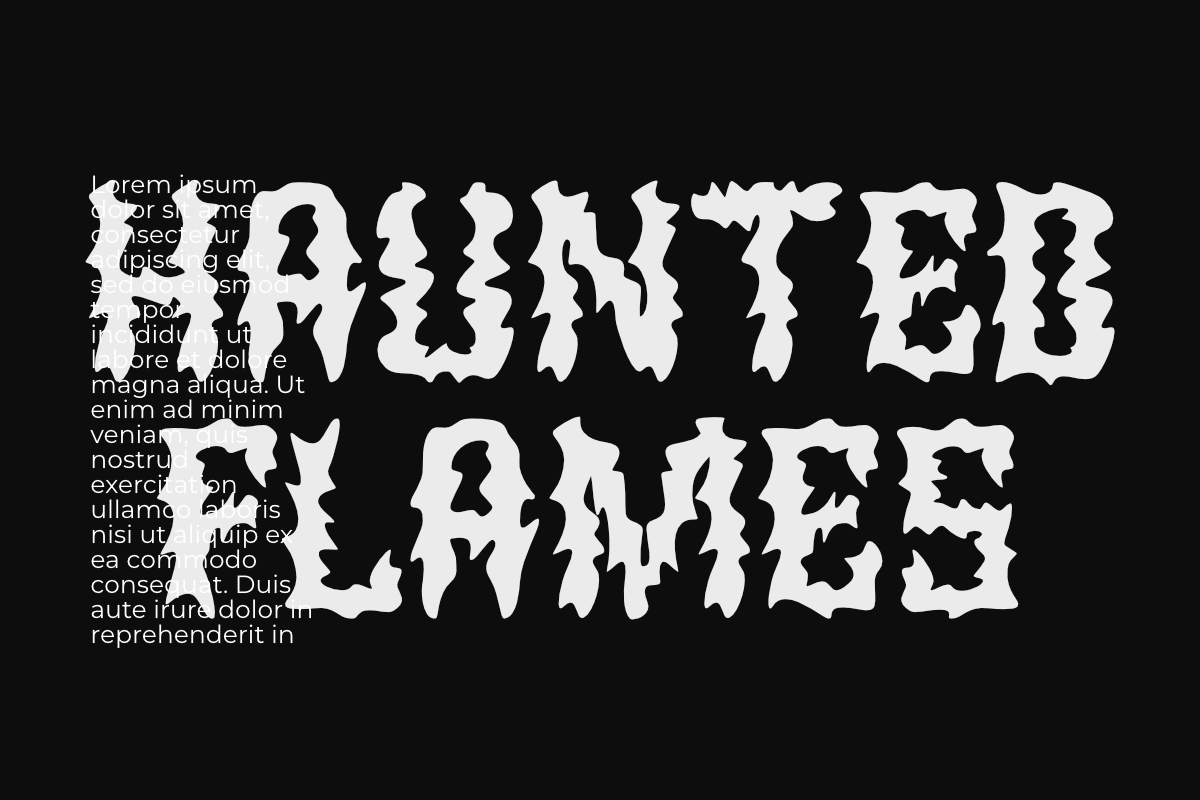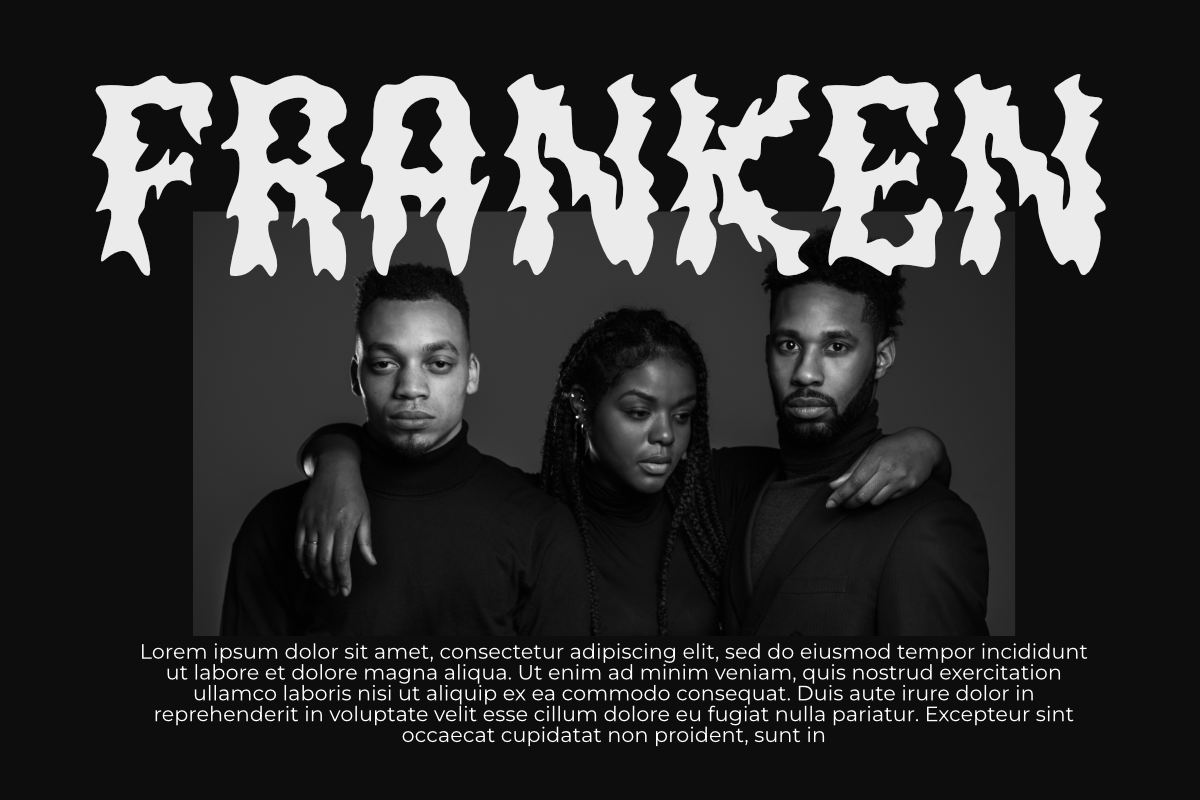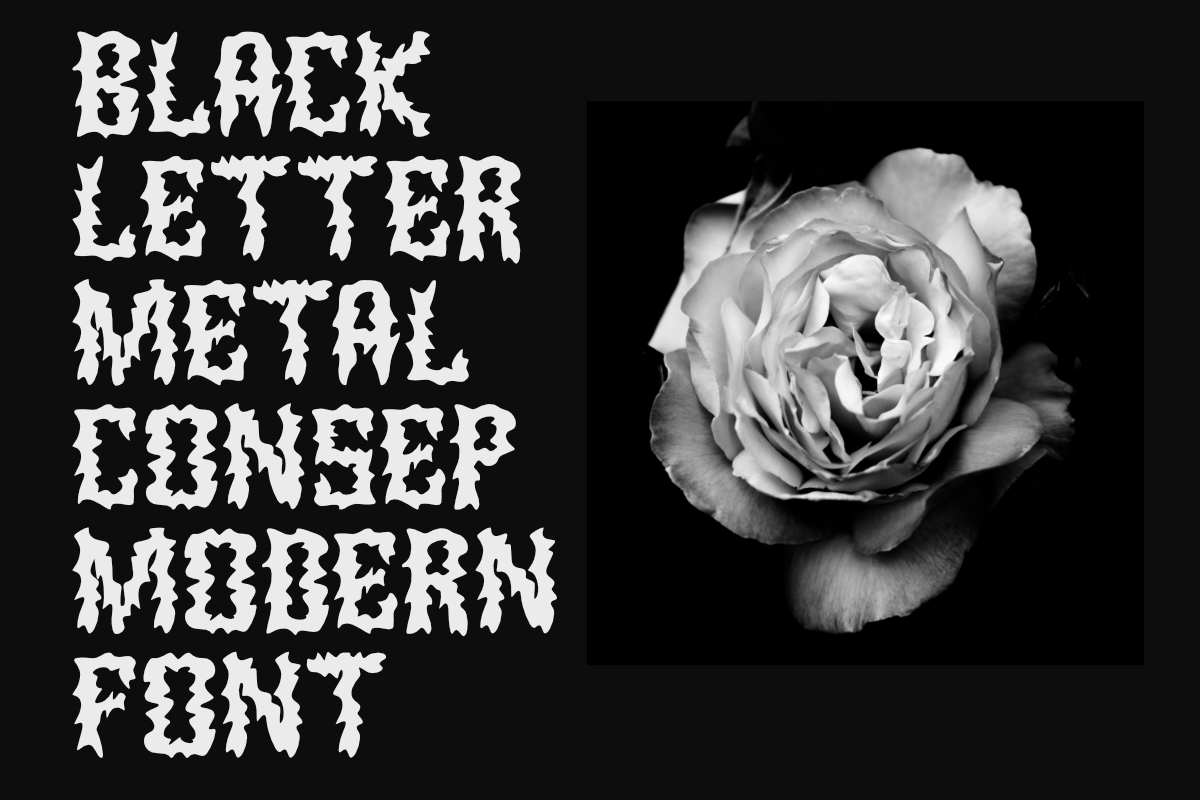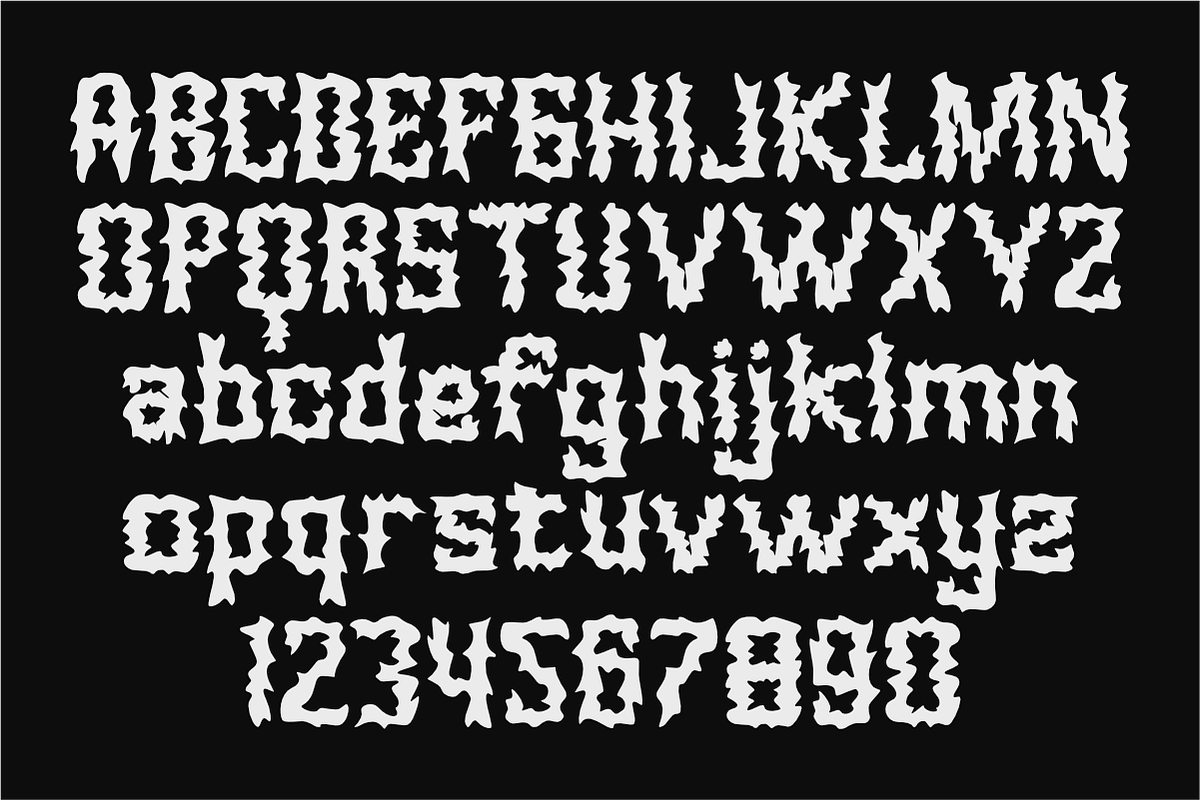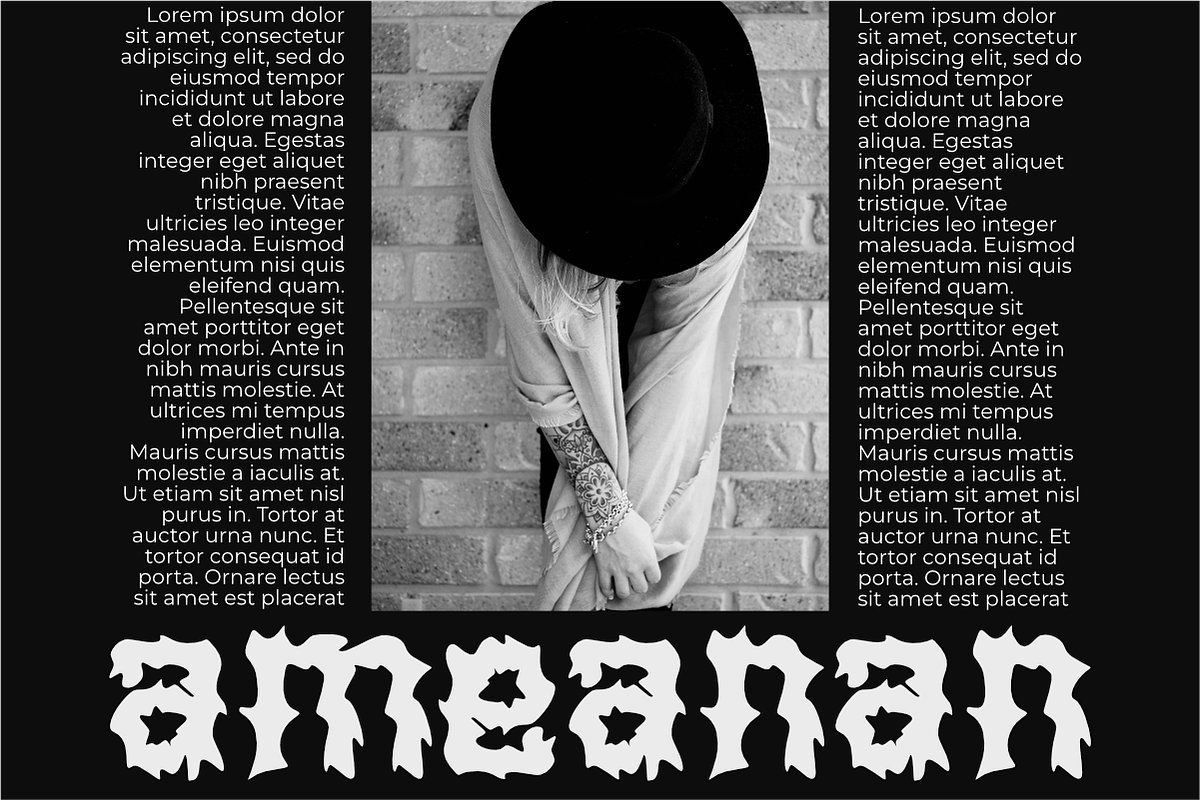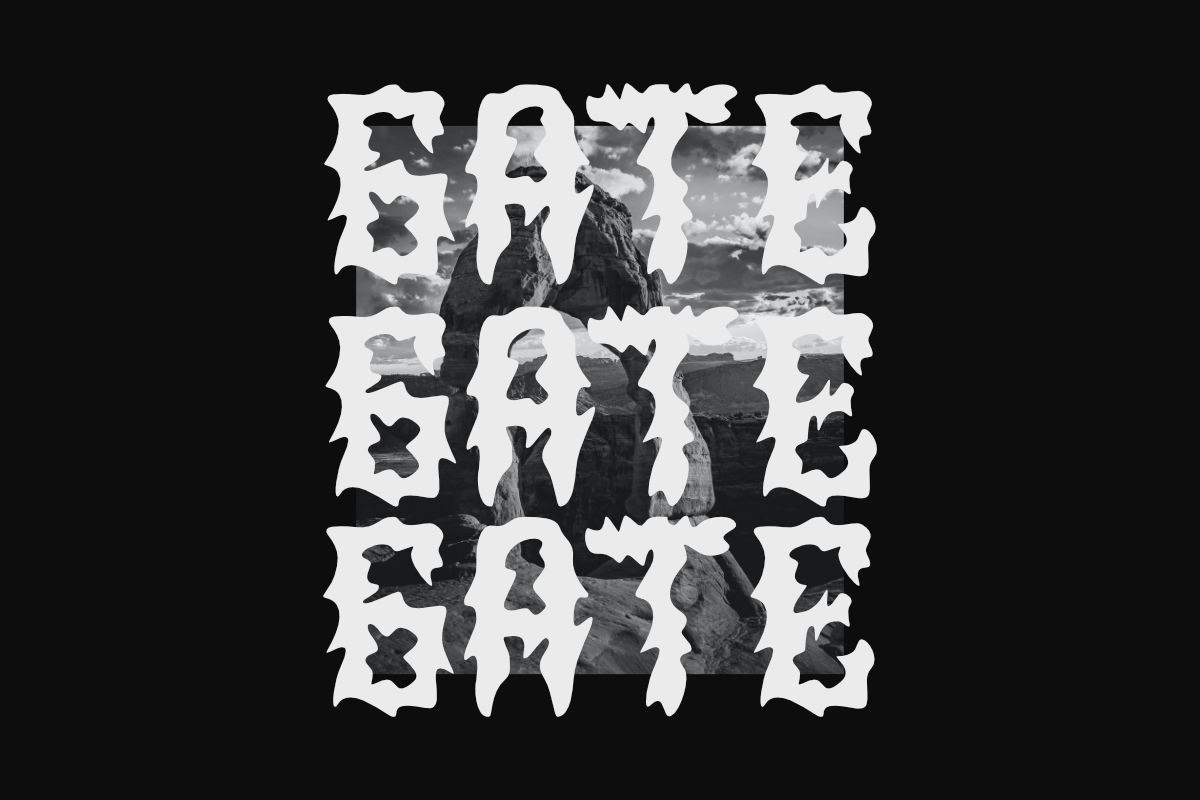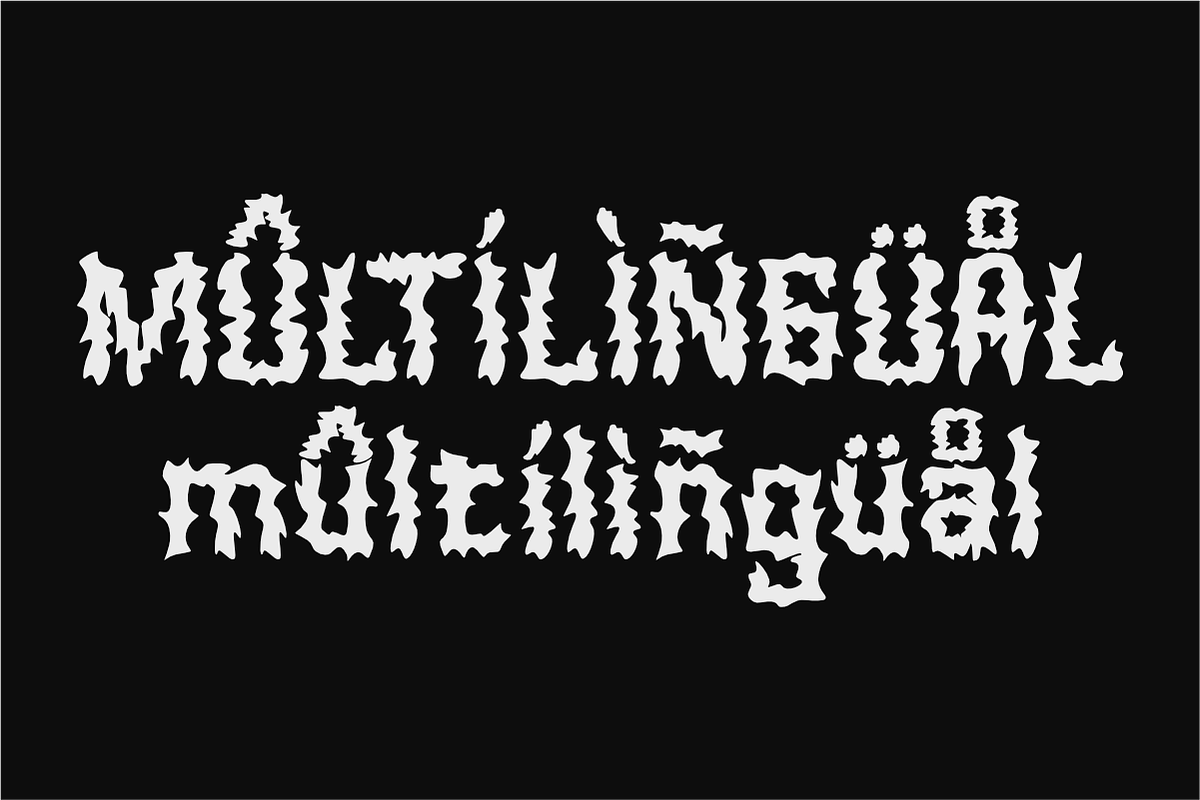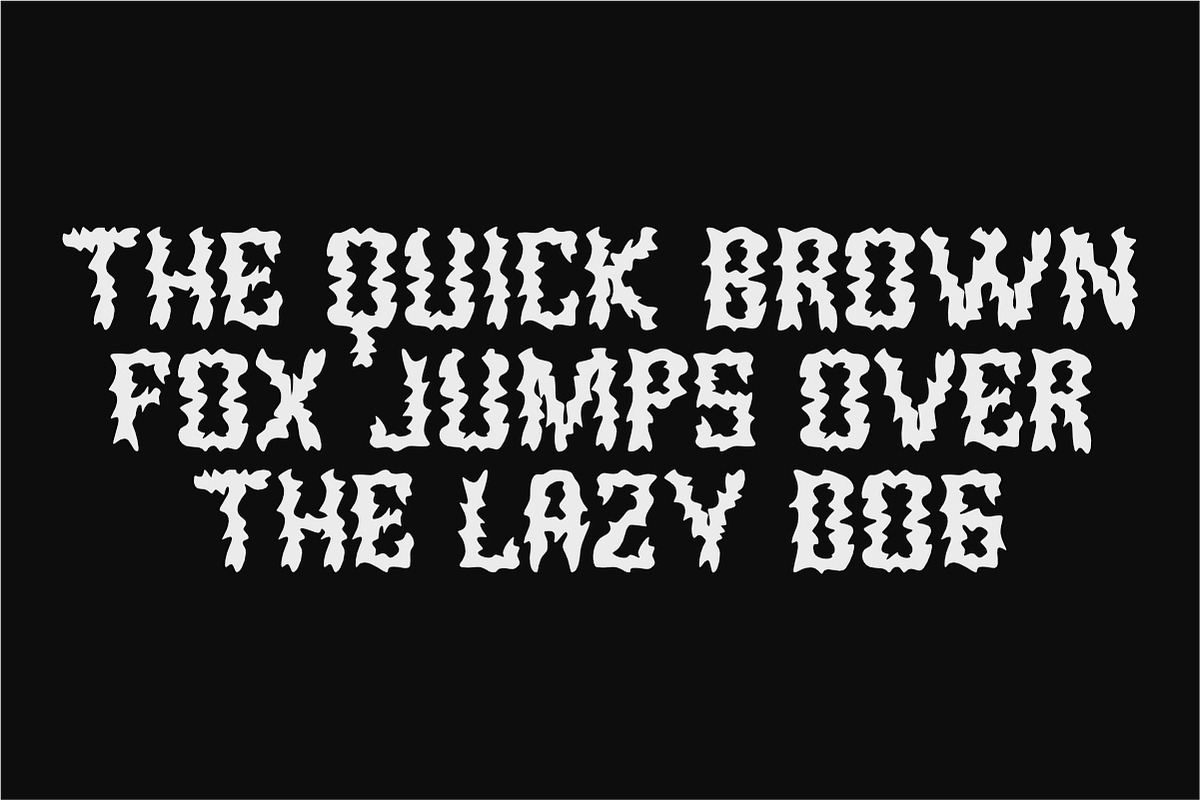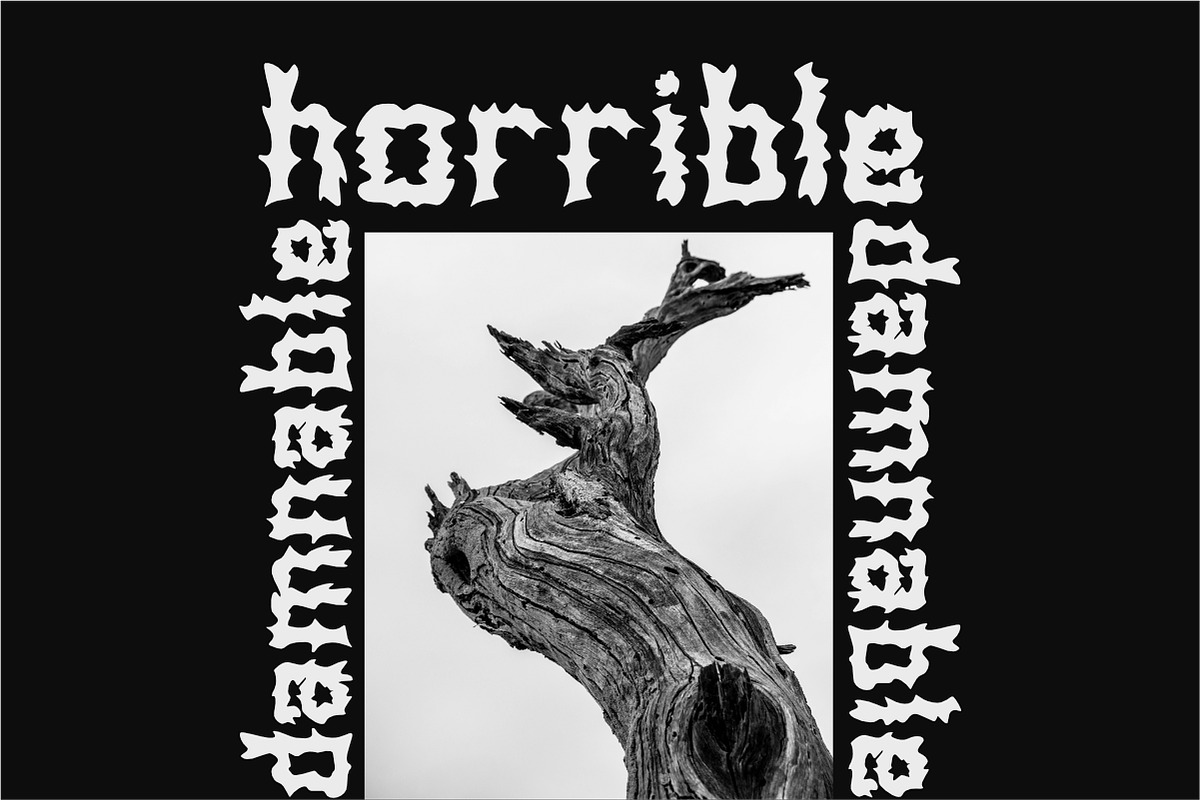
Bunfire
Bunfire is a font that combines elements of strength, mystery, and a touch of femininity with characters that appear jagged and intense, as if scorched by flames. Each letter features a unique and eerie design, creating a dramatic and captivating effect while maintaining a subtle feminine charm. Bunfire is ideal for various creative projects, from horror posters and book covers to branding endeavors that seek to highlight a dark, mystical, yet elegant vibe. Its bold and characterful appearance offers the perfect blend of tension and grace, making Bunfire an unforgettable choice for any design.